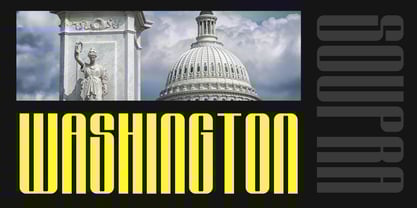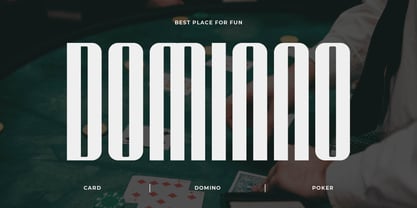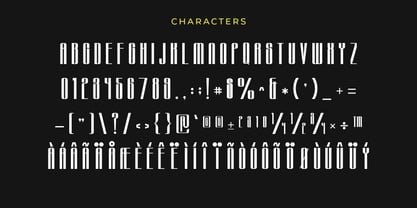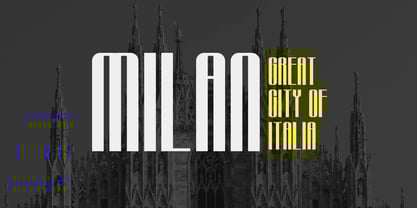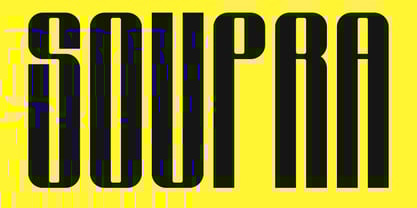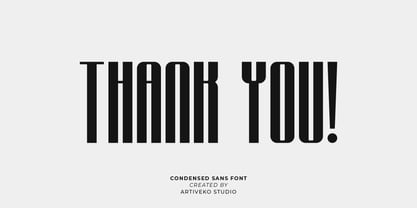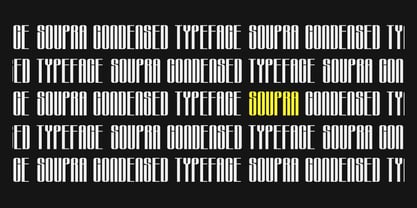
Soupra
Die Schriftfamilie Soupra wurde von Iwan Alwan entworfen und von Artiveko veröffentlicht. Soupra enthält 2 Stile und Familienpaketoptionen. Mehr über diese Familie
Soupra is a sleek condensed sans serif font by Iwan Alwan, featuring narrow, modern letterforms that combine elegance with efficiency. Perfect for branding, headlines, posters, and digital interfaces, Soupra offers a clean and space-saving design that ensures readability and style. With multilingual support, ligatures, and alternates, Soupra is versatile yet contemporary, making it ideal for projects that demand a compact and polished aesthetic.
Artiveko is a font design team based in Indonesia, comprised of several talented font designers who commenced their careers in the font design industry in 2020. With a dedicated focus on crafting fonts, the team members bring their collective expertise and passion to every project they undertake. Situated in Indonesia, Artiveko draws inspiration from the vibrant cultural landscape of the region, infusing their creations with unique flavors and aesthetics.The team's font collection encompasses a diverse range of styles, including serif, sans serif, handwritten, and script typefaces. Each typeface is meticulously crafted to meet the demands of modern design while offering versatility and functionality across various applications. Whether it's the classic elegance of serif fonts, the contemporary appeal of sans serif designs, the personal touch of handwritten scripts, or the expressive flourishes of script fonts, Artiveko ensures that every font reflects their dedication to quality and innovation.Artiveko's fonts have garnered recognition and acclaim, with their works being featured on prominent social media platforms like Creative Market. Through these platforms, the team has been able to connect with a global audience of designers and typographers, further amplifying their reach and influence in the industry. Their fonts are celebrated for their impeccable craftsmanship, attention to detail, and ability to elevate design projects with style and sophistication.As Artiveko continues to evolve and expand its font collection, the team remains committed to pushing the boundaries of typography and setting new standards of excellence. With a relentless focus on creativity, innovation, and collaboration, Artiveko strives to inspire and empower designers around the world with their distinctive and versatile font designs.